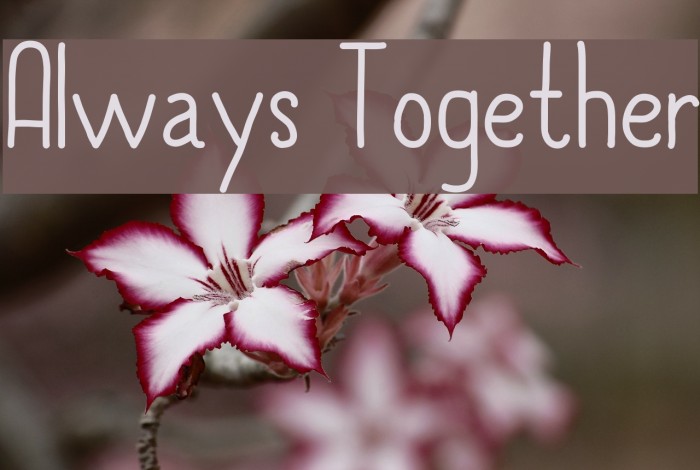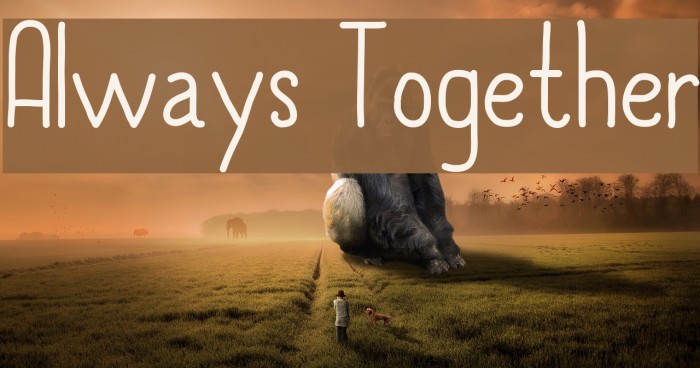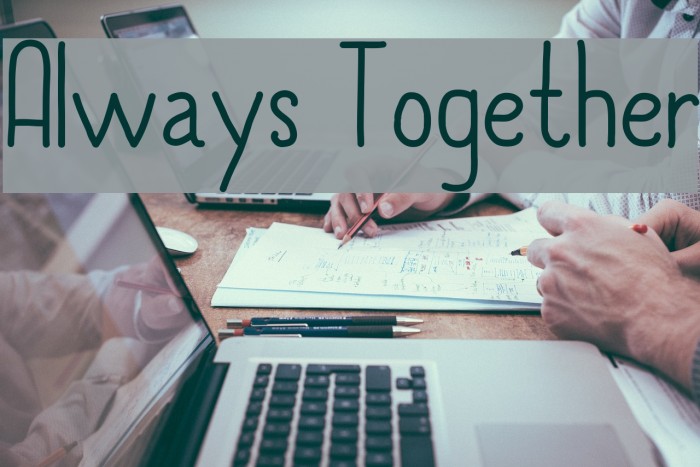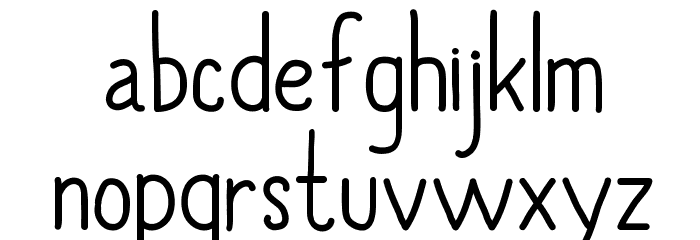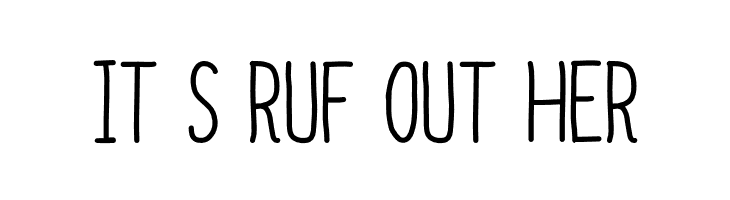
Always Together Font
Always Together Description
This font features a playful, handwritten style with a casual and friendly appearance. The letters are slightly irregular, giving it a personal touch that mimics natural handwriting. The uppercase letters are tall and narrow, while the lowercase letters maintain a consistent height, contributing to a cohesive look. The numerals and special characters follow the same handwritten aesthetic, making them blend seamlessly with the alphabet. The overall design is simple yet charming, suitable for projects that require a personal or informal tone.
A playful, handwritten font with a casual and friendly appearance from Uncategorized fonts.
- Proposed Projects: Ideal for greeting cards, personal invitations, children's books, and casual branding projects.
- Overall Style: Casual
- Use Case: Headlines, Informal text, Personal projects